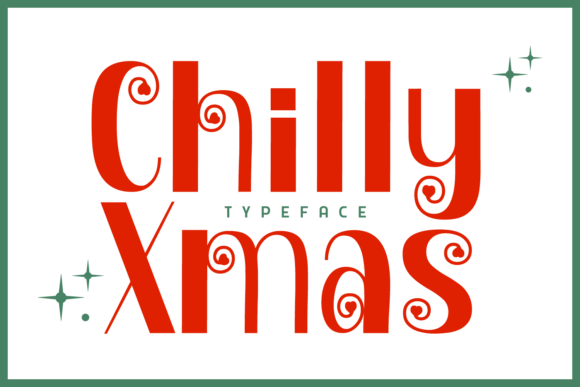
The Magic of the Holiday Season: Introducing Chilly Xmas Font
As the snowflakes start to fall and the fireplace crackles to life, there’s something undeniably magical about the holiday season. For many of us, it’s a time to get creative, to craft special memories, and to show our loved ones just how much we care. And what better way to capture that festive spirit than with a font that embodies the cozy, whimsical essence of winter?
Enter Chilly Xmas Font, a delightful, handwritten font designed to bring a touch of charm and cheer to your holiday designs. Whether you’re crafting greeting cards, gift tags, or seasonal graphics, this font is the perfect companion to help you spread some holiday joy. And for designers, it’s a valuable addition to any toolkit, offering a unique and playful way to add some personality to your work.
Key Features of Chilly Xmas Font
- Size: The font family includes a range of weights from Thin to Extra Bold, providing flexibility for different design needs.
- Unique Characteristics: The Chilly Xmas Font features a unique, festive design with a wintery theme, complete with snowflakes, holly, and other seasonal elements.
Chilly Xmas Font Review
I recently had the chance to work with the “Chilly Xmas Font” and here’s my honest take on it. ✨ One thing I really appreciate about this font is its festive vibe – it’s perfect for any winter-themed project. The intricate details and ornaments make it a great choice for holiday cards, gift tags, and other seasonal designs.
Another thing that works well is the font’s versatility. ✨ It comes in multiple weights and styles, which allows designers to create a range of looks, from modern to traditional. The font also includes a variety of ornaments and decorations, which can be easily customized to fit the design.
- ⚠️ The font may be too busy for some designs – the intricate details and ornaments can make it difficult to read, especially in smaller sizes.
- ⚠️ The font is limited to a specific theme, which may not be suitable for all projects.
Overall, I think the “Chilly Xmas Font” is a great addition to any designer’s toolkit. While it may have some limitations, its festive vibe and versatility make it a great choice for winter-themed projects. With a little creativity, designers can create some truly unique and eye-catching designs using this font.
The Chilly Xmas Font is perfect for holiday-themed designs, including Christmas cards, gift tags, and social media graphics.